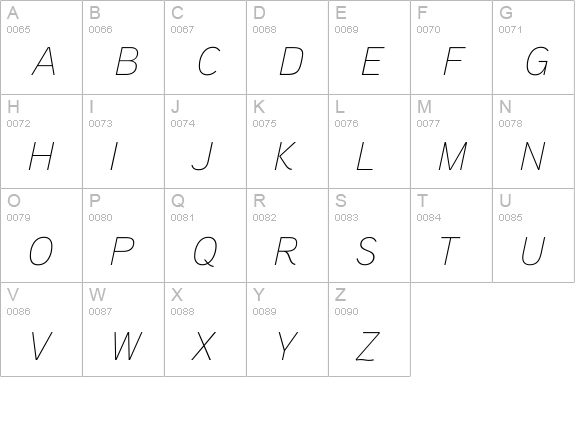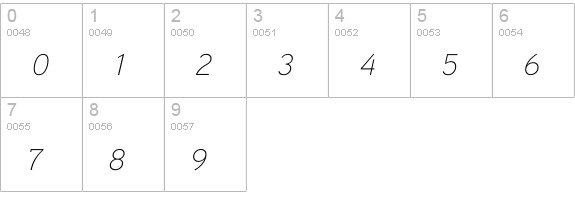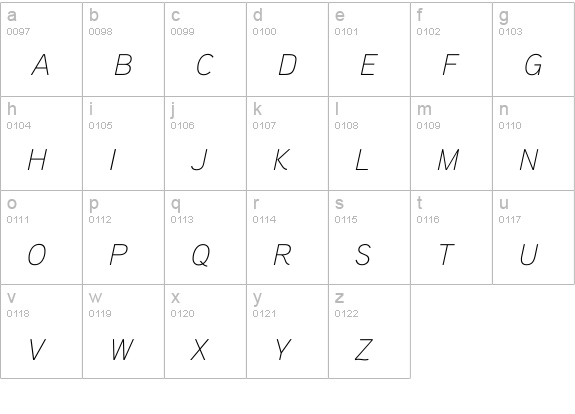
Aaux ProThin Italic SC is a distinctive, italic variant in the Aaux typeface family \xE2\x80\x94 well suited to design and typography projects.
Aaux ProThin Italic SC font is a sleek and modern typeface that exudes elegance and sophistication. Its delicate and slender letterforms create a sense of refinement and style, making it perfect for projects that require a touch of sophistication. This italic variant of the Aaux ProThin SC font adds a touch of flair and personality to your designs, making text appear dynamic and engaging. The slanted nature of the letters adds a sense of movement and energy, making this font ideal for titles, headers, and other prominent text elements. Best of all, Aaux ProThin Italic SC font is available for free download at FontsMarket.com. This means you can easily access this stylish and versatile typeface for your design projects without any cost. Don't miss out on the opportunity to elevate your designs with the elegant Aaux ProThin Italic SC font today!